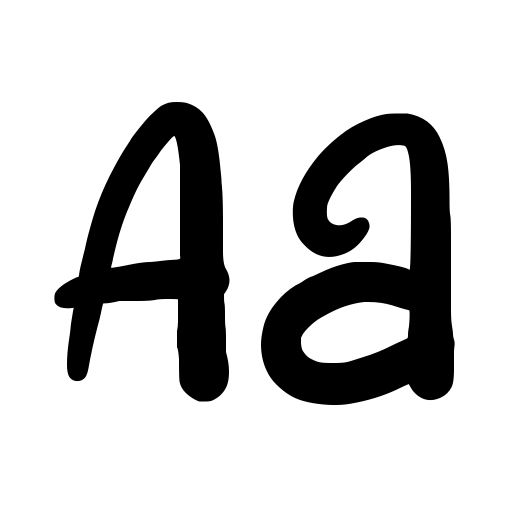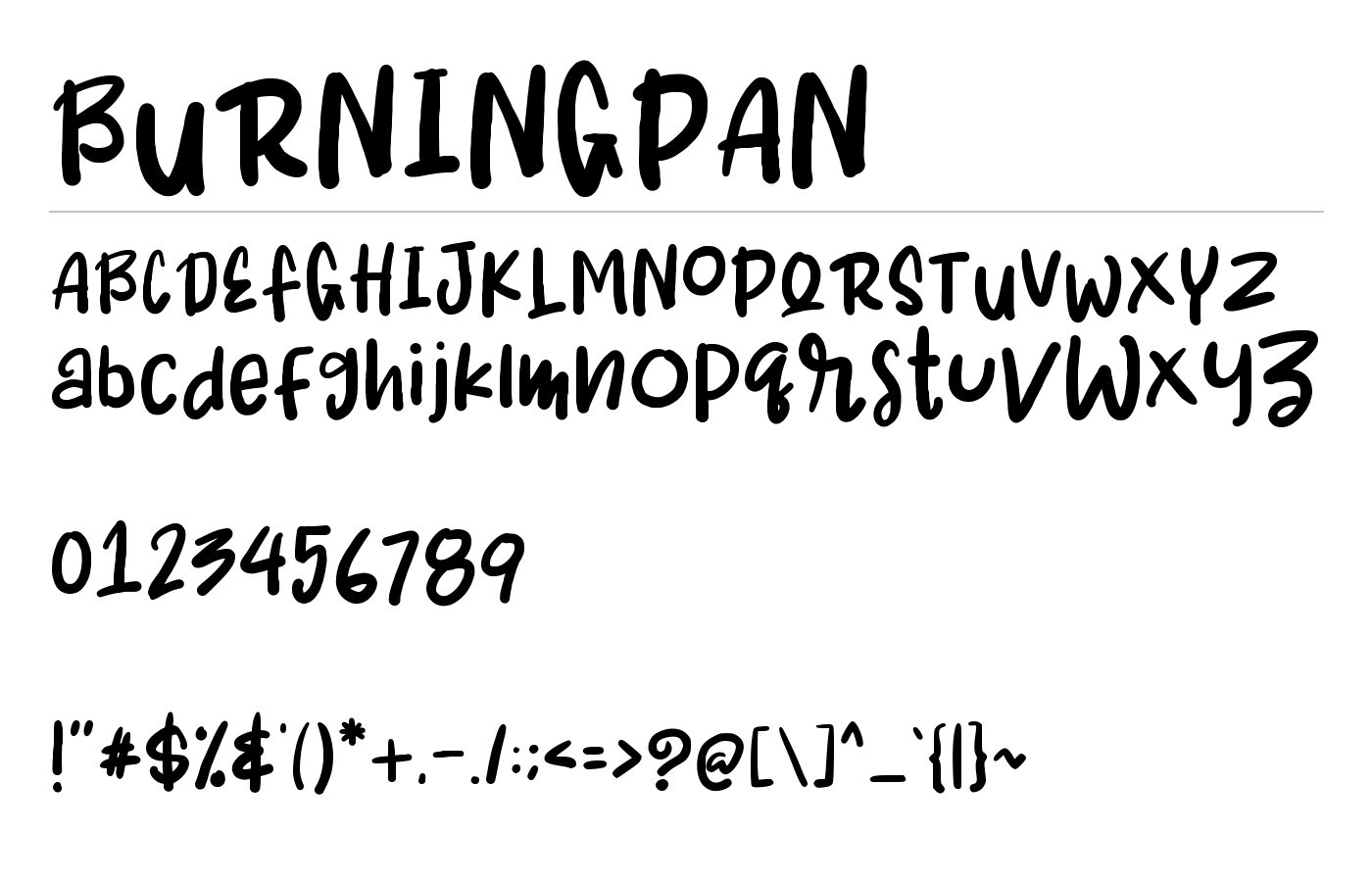
BURNINGPAN is a playful, hand-drawn sans serif font with a casual and friendly personality. Its irregular strokes and lively, slightly condensed letterforms give it an energetic, informal feel that works well for creative projects, youth-oriented brands, and fun editorial designs. This font shines in headlines, posters, and packaging where a warm, approachable vibe is desired.
BURNINGPAN Font
About BURNINGPAN Font